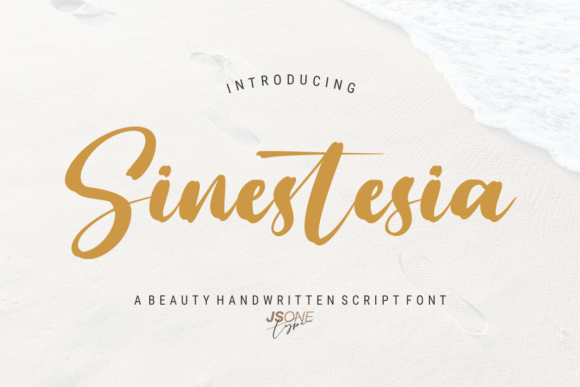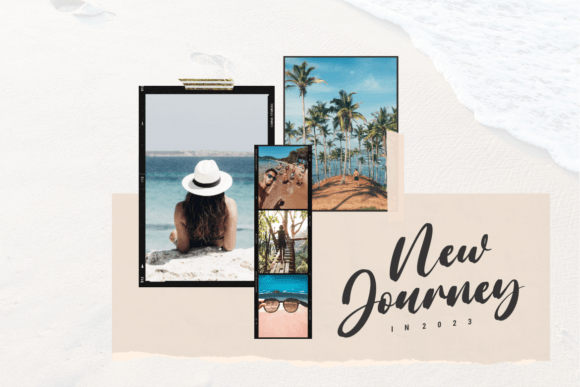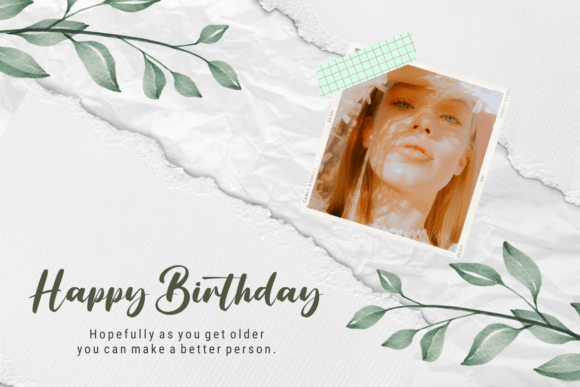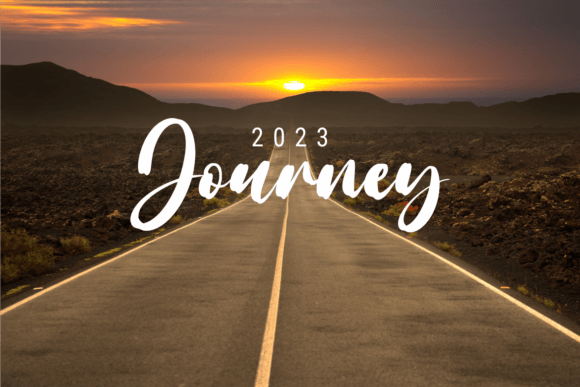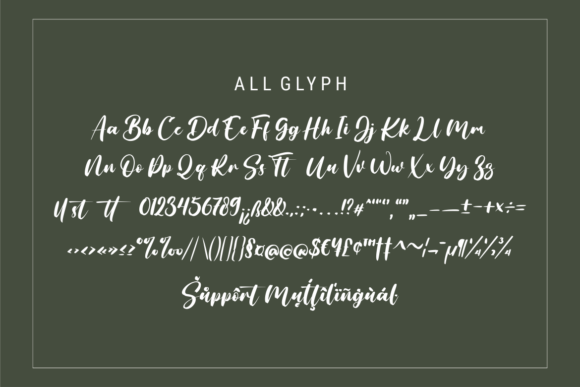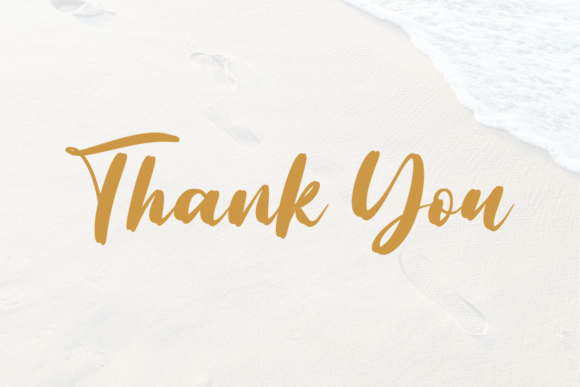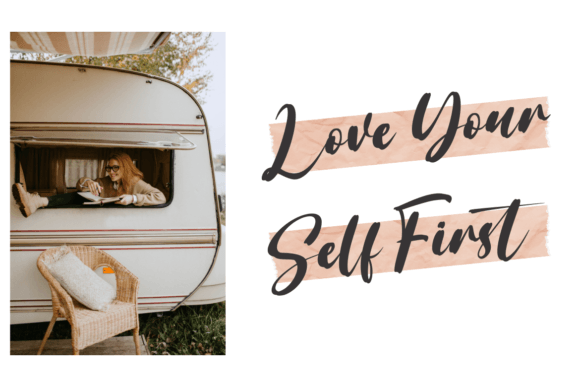
Sinestesia
About Sinestesia
Sinestesia is a delicate, simple, and stylish handwritten font. This graceful font has a wide spectrum of applications ranging from greeting cards to headlines and is guaranteed to add a romantic feel to your next project.